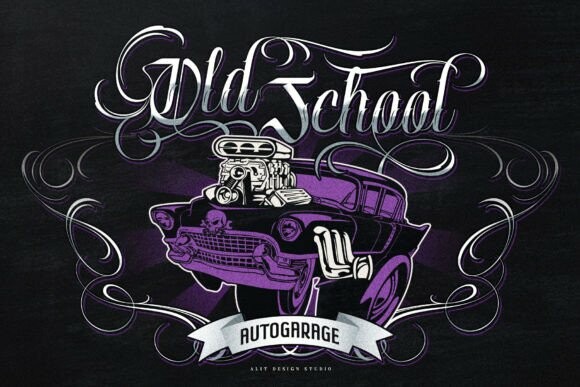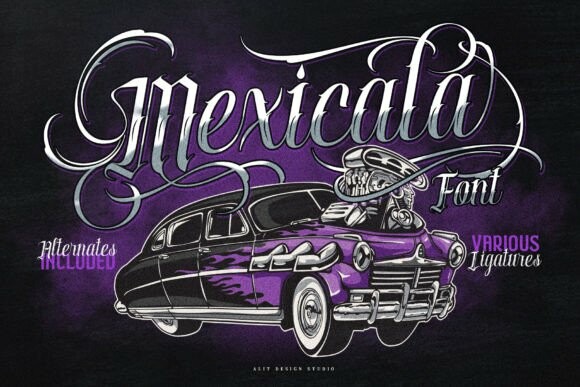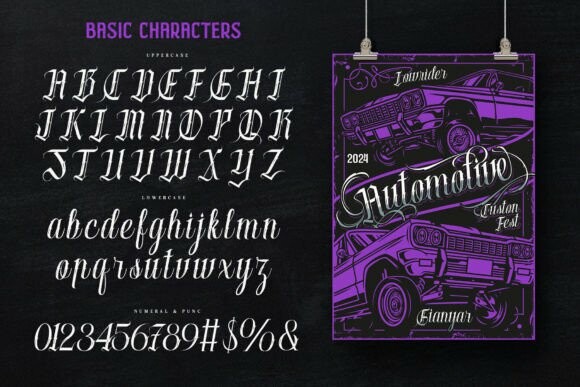
Mexicala Font
Designer: alit design
Mexicala Font, a meticulously crafted font that embodies the spirit of Mexican gangster culture and the timeless art of tattoo scripts. Designed for those who appreciate the bold and intricate, Mexicala is your go-to font for projects that demand authenticity and edge.